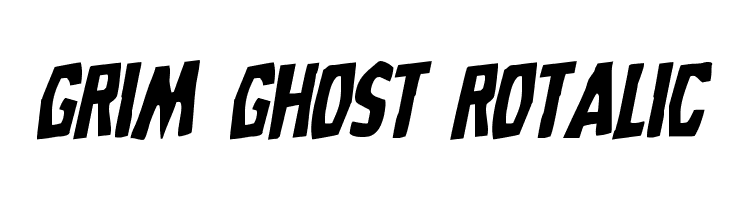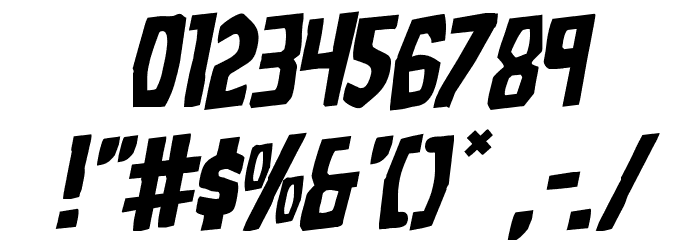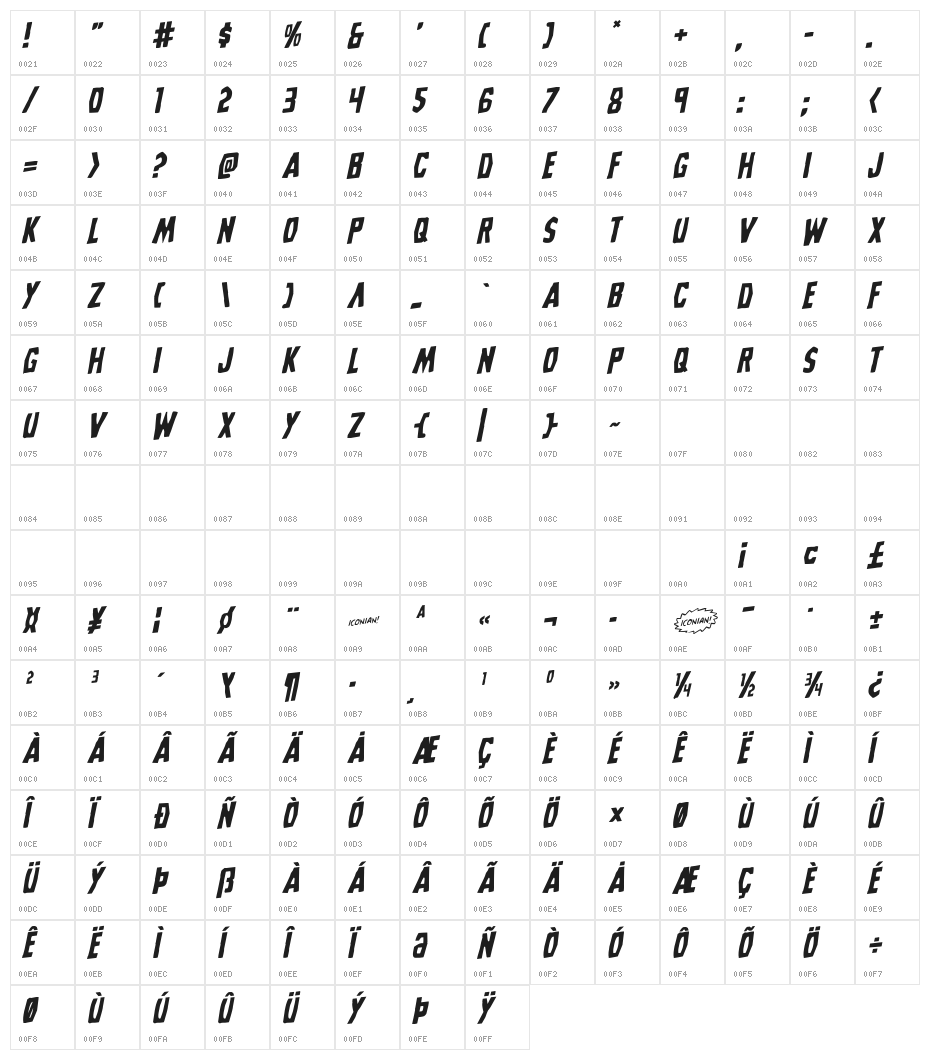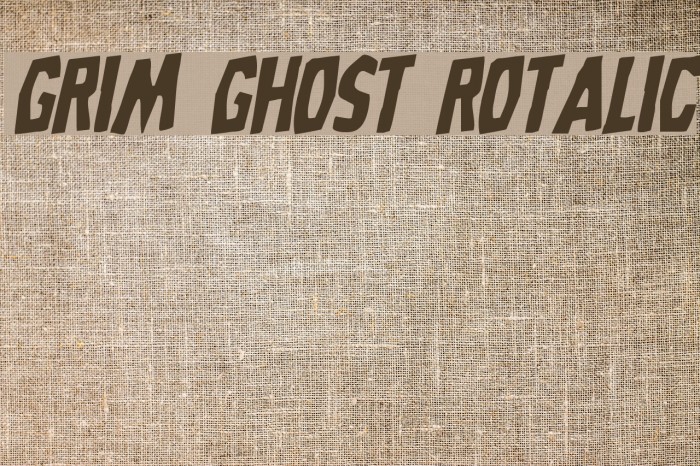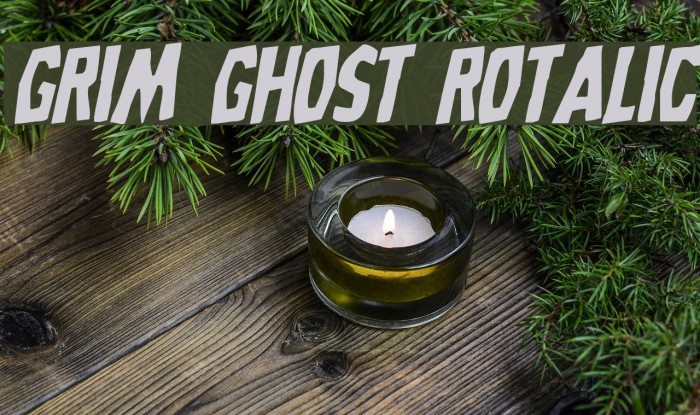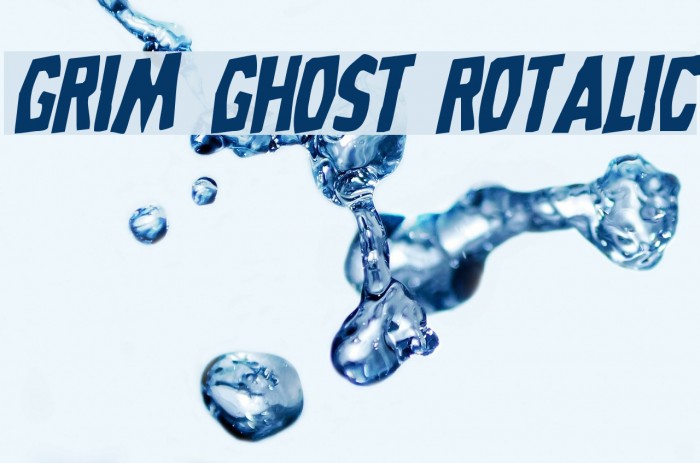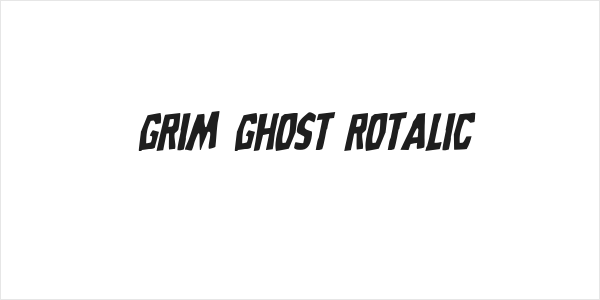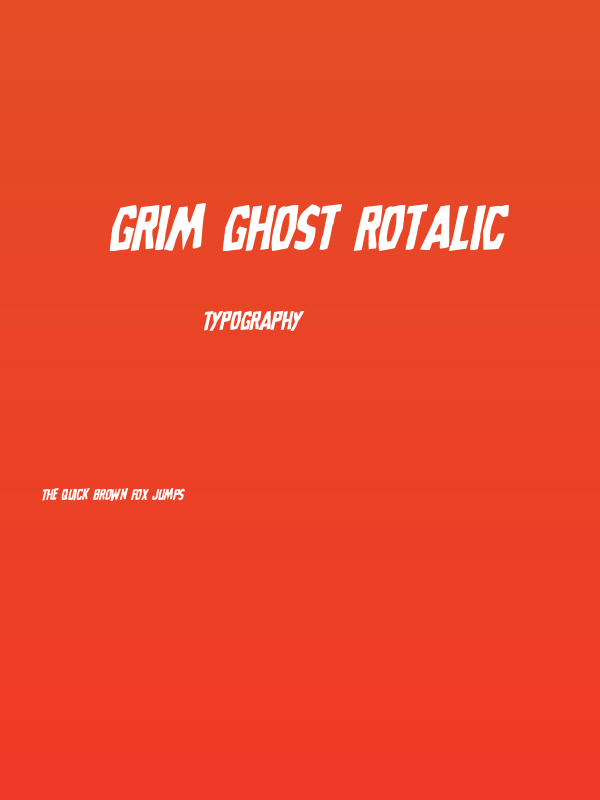
Grim Ghost Rotalic Font
Grim Ghost Rotalic Description
This font features a bold and dynamic style with a distinct slant, giving it a sense of movement and energy. The characters are angular and sharp, with a slightly condensed form that enhances its striking appearance. The uppercase and lowercase letters maintain a consistent style, while the numerals and special characters complement the overall design. The font's boldness and unique slant make it ideal for projects that require a strong visual impact.
| Proposed Projects | Ideal for posters, logos, and headlines that need a strong, energetic presence. |